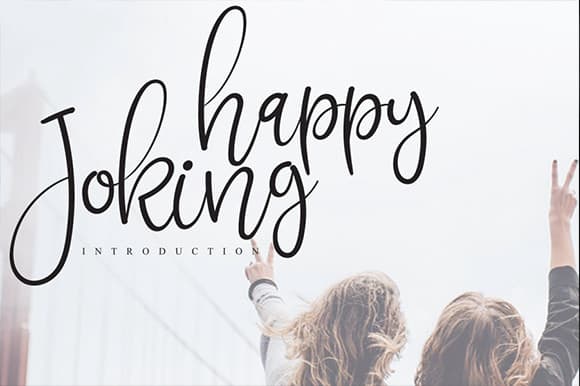
Joking Happy Calligraphy Font
Joking Happy Calligraphy Font is the latest style letters are perfect for wall displays, wedding invitations, social media post logos, advertisements, product packaging, product designs, labels, photography, watermarks, invitations, stationery, and any project that requires taste handwriting.